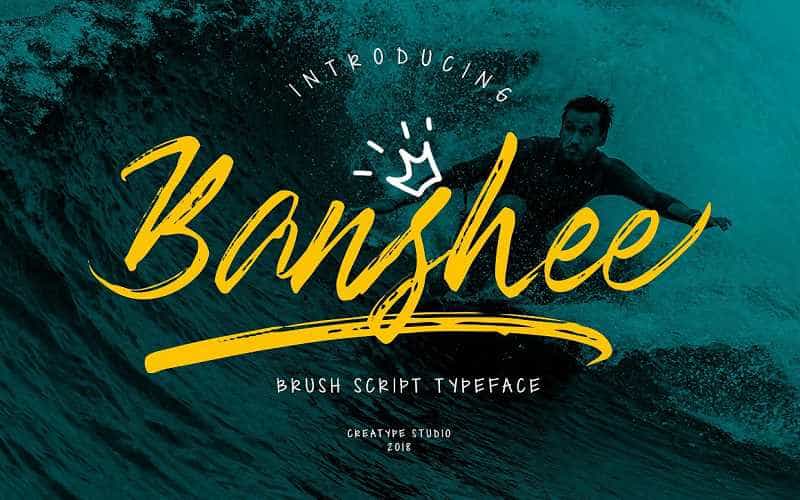
Presenting Banshee – A dry brush script font designed from natural flow scratch with distinct flair. This font will add a new dimension to your latest project and make it look more bulky, classy and contemporary.